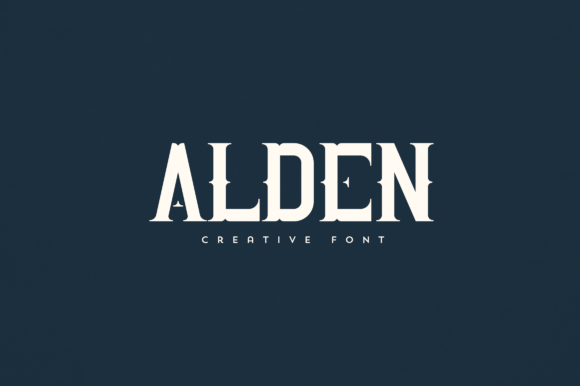
The Perfect Blend of Elegance and Versatility: Introducing Alden Font
Alden Font is a beautiful display font that’s designed to make your typography truly unique. With its elegant and versatile style, it’s perfect for branding projects, home-ware designs, product packaging, magazine headers – or simply as a stylish text overlay to any background image. As a designer, you’ll love the flexibility and creativity that Alden Font offers, allowing you to elevate your designs and stand out from the crowd.
Alden Font Key Features
- Font Family: Alden is a serif font family designed for body text and headlines.
- Character Count: Alden includes a wide range of characters, including Latin, Cyrillic, and Greek scripts.
- Font Size: Available in various sizes, ranging from 8pt to 72pt, with optimal legibility at 10pt to 14pt.
- Resolution: Designed for use at resolutions up to 300 DPI, making it suitable for print and digital applications.
- Unique Characteristics: Alden features a unique blend of modern and traditional typography, with subtle flair and elegance.
Alden Font Review
Alden Font is a typeface that has both charm and character. ✨ I appreciate its unique blend of modern and vintage elements, which makes it an excellent choice for designers seeking to create visually appealing and engaging content.
The Alden Font’s versatility is one of its standout features. ✨ It works well in a variety of contexts, from body text to headings, and even for short quotes or titles. Its clean lines, rounded edges, and subtle flair make it a great option for designers who want to add some personality to their projects without going over the top.
While Alden Font is a solid choice, it does have some limitations. ⚠️ The font’s character set is not as extensive as some other typefaces, which can make it less suitable for projects that require a wide range of characters or languages.
In conclusion, Alden Font is a great option for designers who want a typeface that is both stylish and versatile. While it may not be the best choice for every project, it is a solid choice for those who want to add some personality and flair to their designs.
Recommendations
Overall, I would recommend Alden Font to designers who are looking for a unique and modern typeface that is easy to read and use. However, it’s essential to consider the specific needs of your project before making a final decision.
- Best for: Body text, headings, quotes, and titles
- Not ideal for: Projects requiring extensive character sets or languages
- Recommended for: Designers seeking a unique and modern typeface
For optimal results, use the Alden font in combination with a clean and simple design. Avoid using bold or italic styles, as they may not render correctly. Also, make sure to adjust the font size and color to match your design’s overall aesthetic.
The Alden font is suitable for a variety of applications, including:
- Resume and CV templates
- Print materials such as brochures and flyers